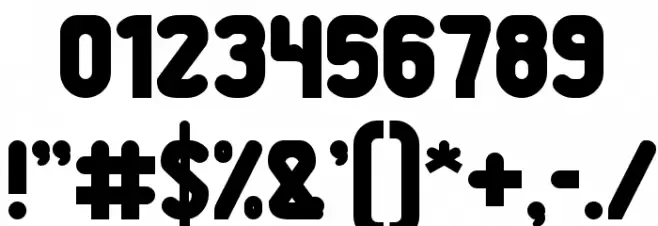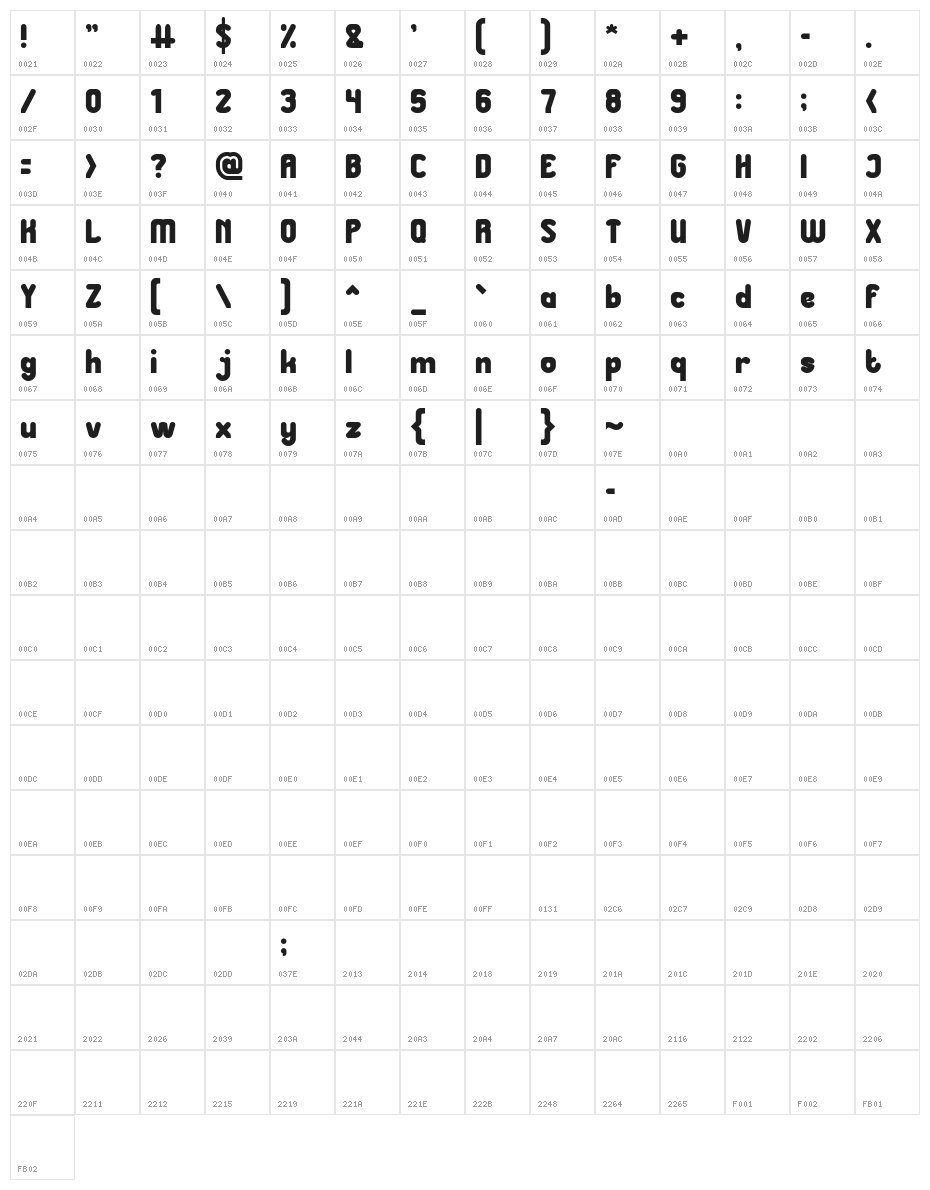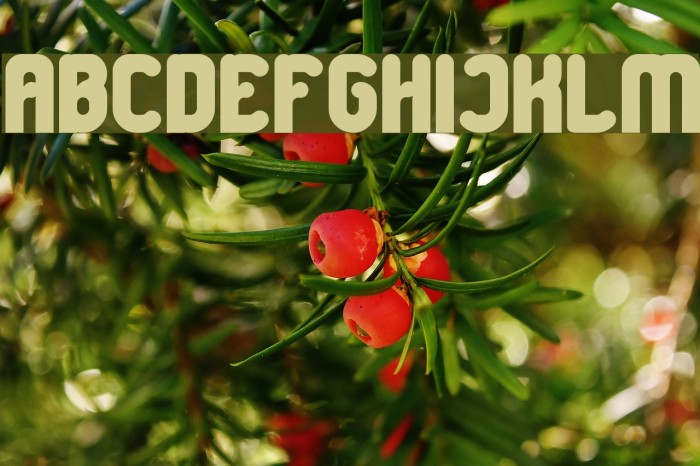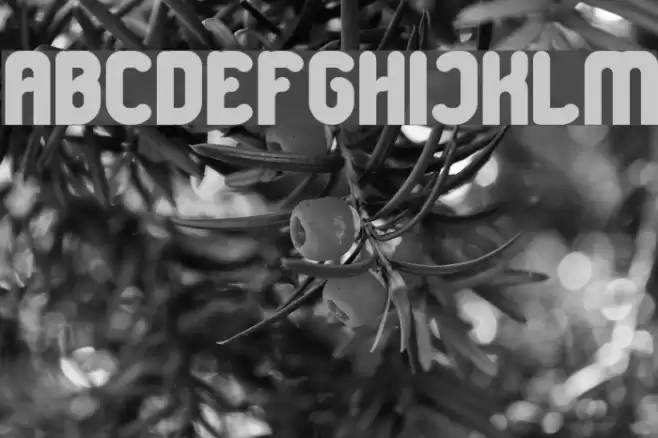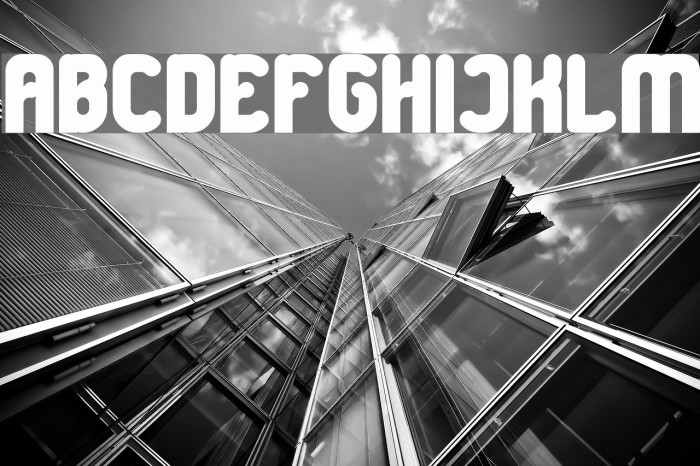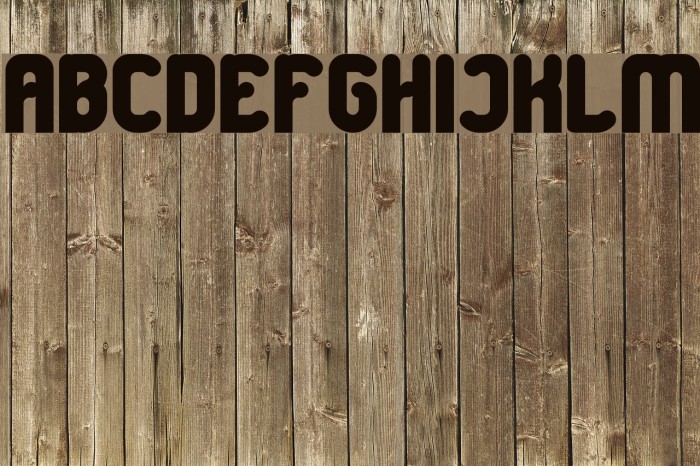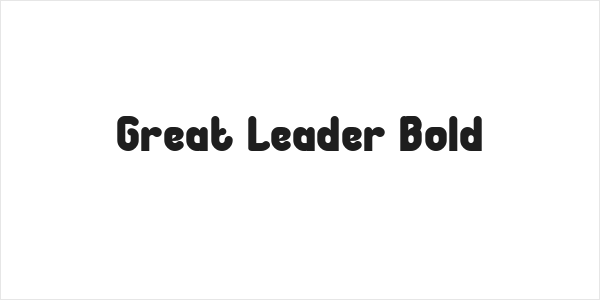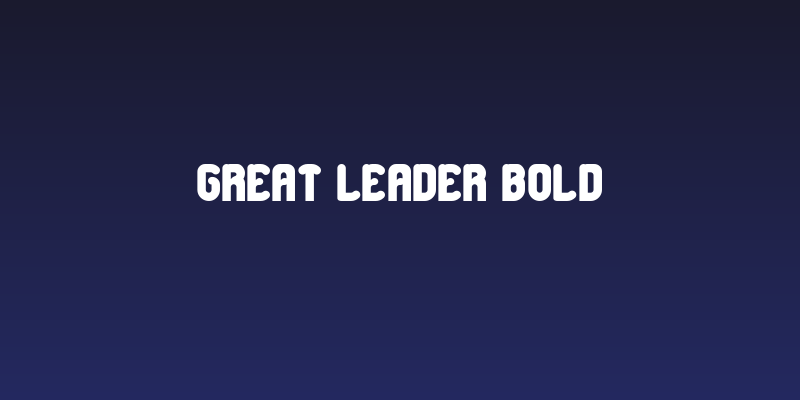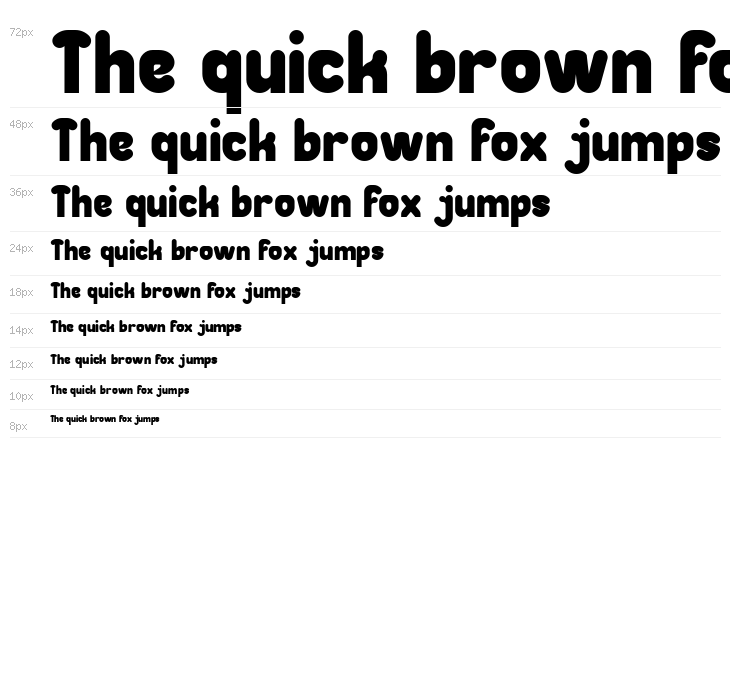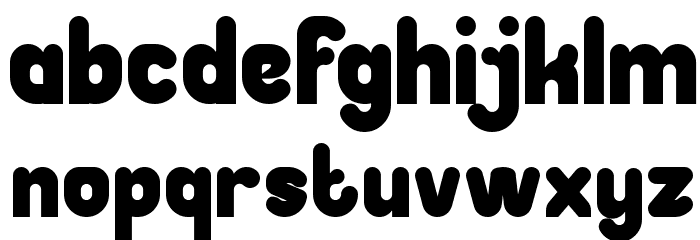
Great Leader Bold Font
Great Leader Bold Description
This font features a bold and rounded style with a strong presence. The characters are uniformly thick, giving it a robust and solid appearance. The rounded edges add a friendly and approachable feel, making it suitable for various creative applications. The uppercase and lowercase letters maintain a consistent width, ensuring readability and balance. Numbers and special characters are designed to match the boldness of the alphabet, providing a cohesive look across all elements. The overall design is modern yet playful, making it versatile for both digital and print media.